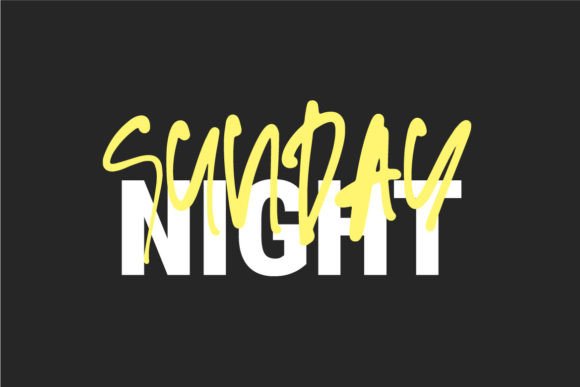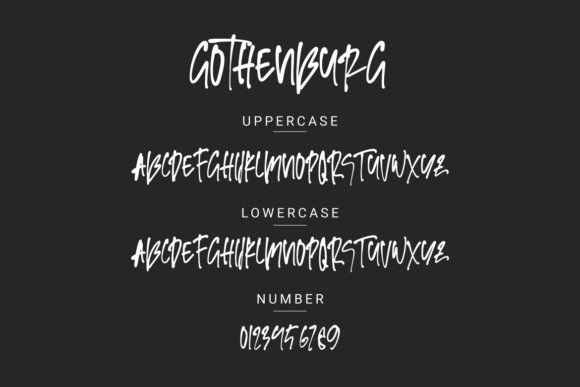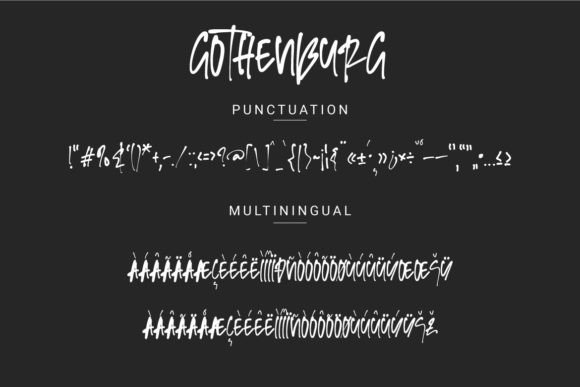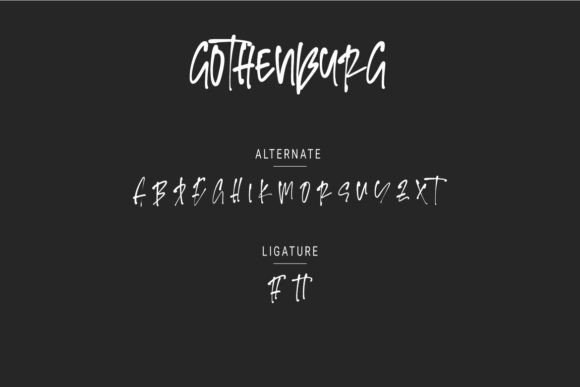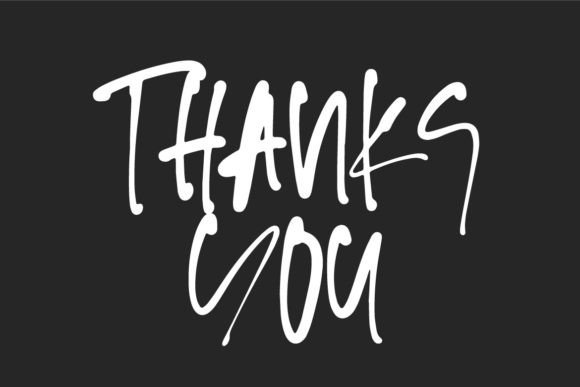
Introduction to Gothenburg Font
Gothenburg is a bold, freestyle script font with a raw, edgy aesthetic.
| 👤 Author | Fallengraphic |
Its irregular baseline, varying stroke weights, and experimental letterforms give it a unique and rebellious feel Gothenburg is ideal for designs that aim to capture a sense of youthful rebellion, urban grit, and non-conformity.
Key Features of Gothenburg Font